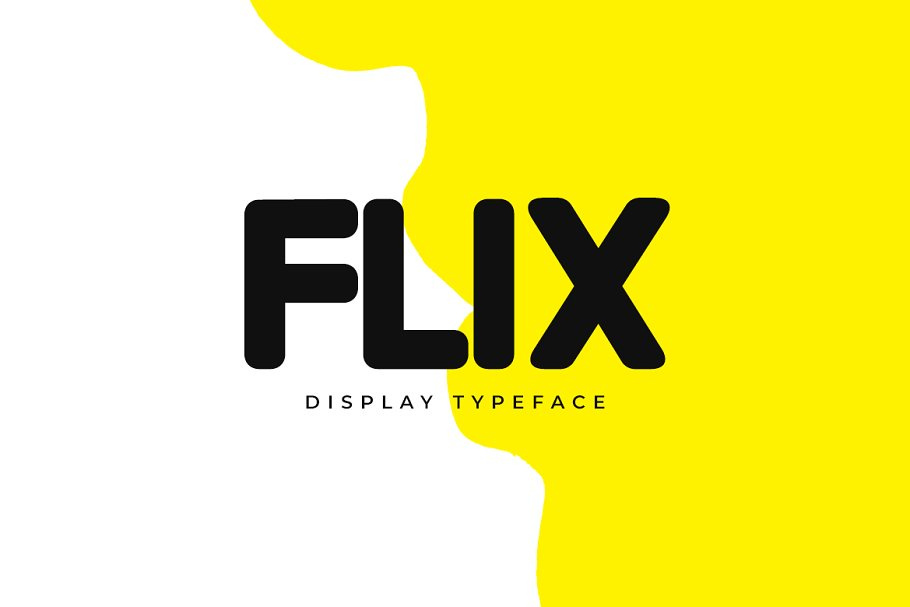
Flix Font
Flix Font is perfect for streaming service branding, entertainment industry campaigns, movie theater signage, digital media platforms, film festival materials, and modern cinema promotions. Its dynamic character makes it ideal for video production companies, content creation studios, entertainment blogs, media agencies, film schools, and any project requiring cinematic excitement with contemporary entertainment aesthetics and digital streaming appeal.
This font is exciting because it captures the fast-paced energy and visual excitement of modern entertainment while delivering exceptional functionality across all digital viewing platforms and media formats. The dynamically crafted letterforms evoke the thrill of binge-watching, blockbuster premieres, and the endless possibilities of digital entertainment, creating powerful connections that resonate with audiences who live and breathe movies, shows, and digital content consumption.
The Flix Font family typically includes Light, Regular, Medium, and Bold weights with cinematic alternates, entertainment-inspired ligatures, and media elements that enhance its dynamic personality. This comprehensive collection provides designers with versatile tools for creating engaging brand systems that maintain entertainment authenticity while offering creative flexibility for various media applications and contemporary entertainment market positioning.